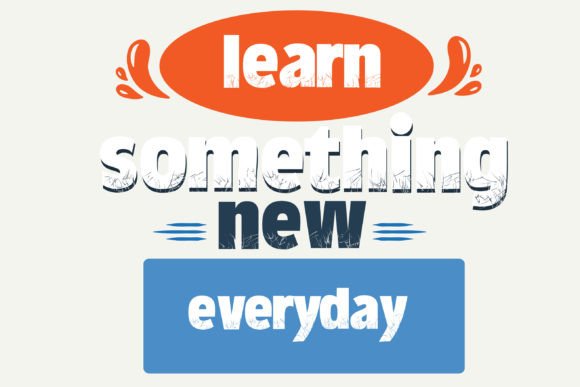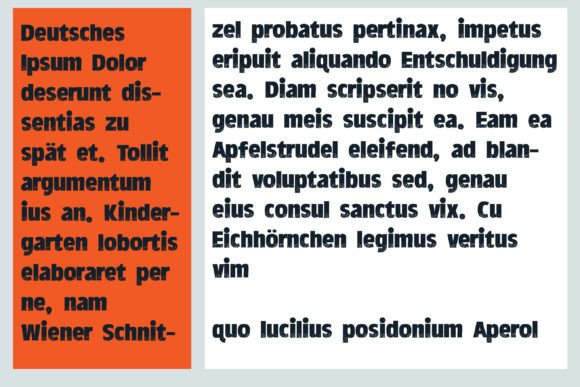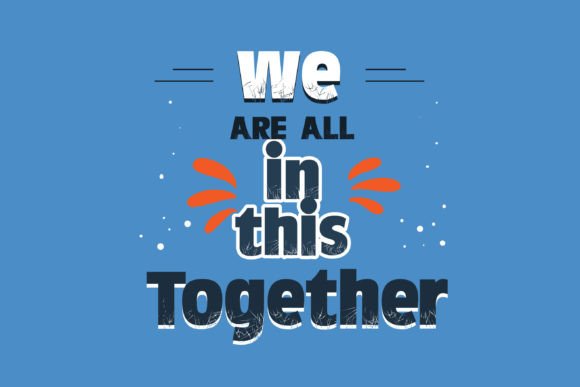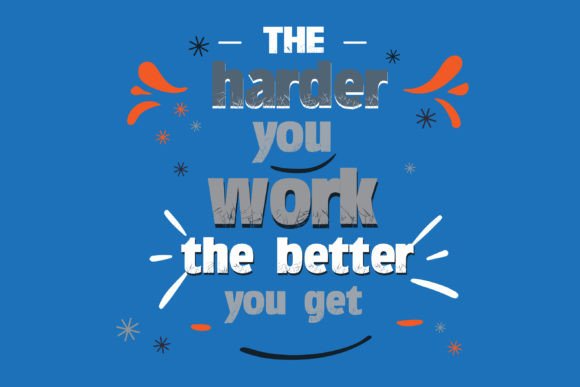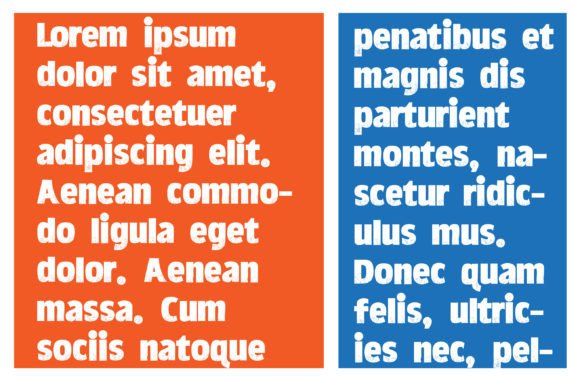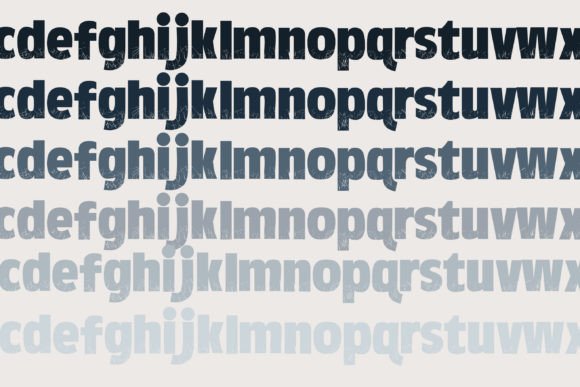
Introduction to Rumble Ready Font
Have you ever stared at a blank canvas, desperate for the perfect design to bring your creative project to life? The blank page can be daunting, but what if I told you there’s a design resource that can help you break through the noise and make a statement?
Enter the Rumble Ready Font, a bold and rugged typeface that’s perfect for designers who want to add a touch of grit and edge to their work. With its high-quality design and transparent background, this font is a game-changer for anyone looking to add some texture and depth to their creative projects.
Key Features of Rumble Ready Font
- Comes with transparent background, making it ideal for use on any design resource or digital art.
- Unique blend of bold and rugged lines, making it perfect for creating attention-grabbing headlines and titles.
- Extremely versatile, suitable for use in various design contexts, from posters and flyers to digital interfaces and UI elements.
Honest Review: Rumble Ready Font
I recently came across the Rumble Ready Font and was excited to dive in and see what it had to offer. As a designer, I’m always on the lookout for high-quality design resources to enhance my creative projects. The Rumble Ready Font does not disappoint!
- High-quality font with a unique, bold aesthetic
- Transparent background makes it easy to use in various design contexts
- Great for use in headings, titles, and other display typography
While the Rumble Ready Font has many great qualities, there are a few limitations to consider:
- May not be suitable for body text due to its bold, attention-grabbing nature
- Limited character set, which may limit its use in certain creative projects
- Not ideal for use in situations where a more subtle, understated font is desired
Overall, I’m impressed with the Rumble Ready Font and would recommend it to designers looking for a bold, eye-catching font to add some personality to their creative projects.
Tips for Getting the Most Out of Rumble Ready Font
To get the most out of the Rumble Ready Font, use it in conjunction with other high-quality design elements. Experiment with different font sizes, colors, and arrangements to create visually appealing designs. The transparent background feature allows for endless creative possibilities.
The Rumble Ready Font is ideal for a variety of creative projects, including logos, business cards, posters, and social media graphics. Its high-quality design and transparent background make it a versatile design resource for professionals and hobbyists alike.